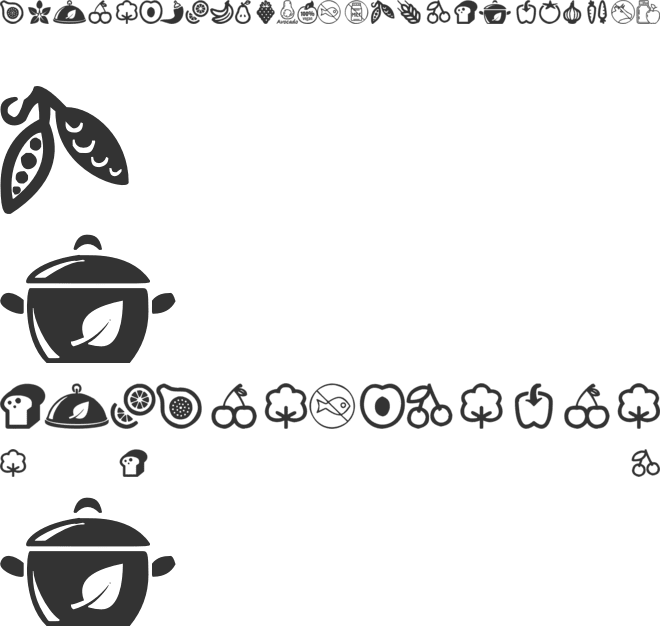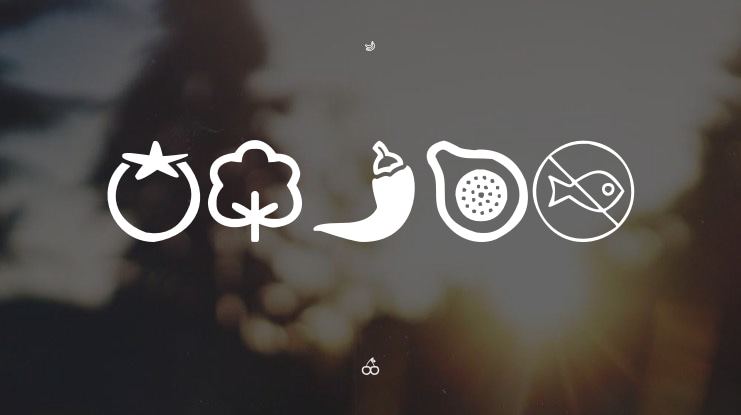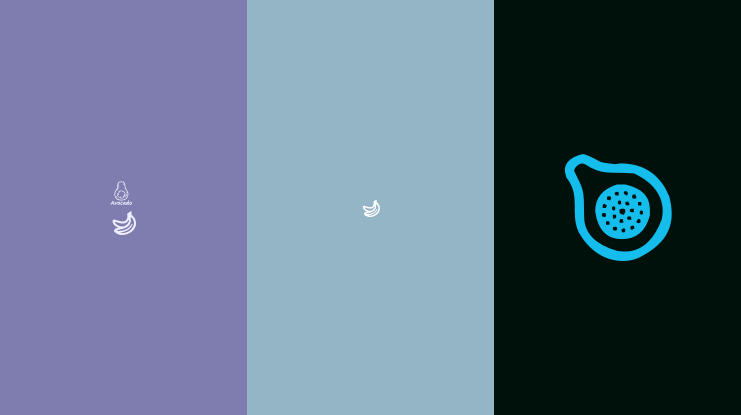
🎨 Font Name: Vegan by Minimalist Art Studio
🎨 Font Description: Vegan Food Dingbats is a silhouette-style dingbat font featuring fruits, veggies, and kitchen icons—perfect for eco branding, recipe cards, and food packaging.